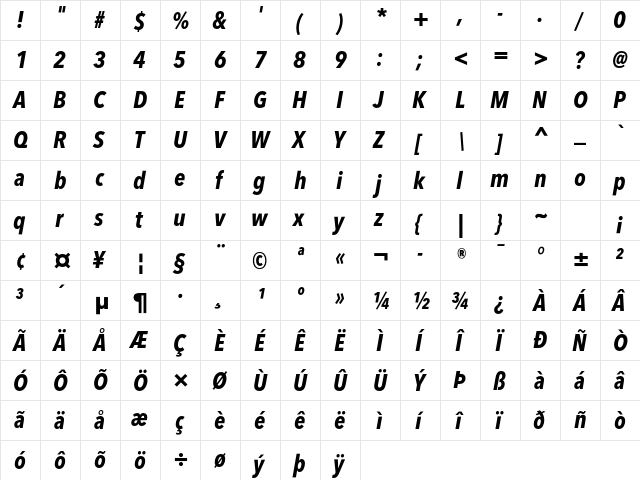
Avenir Next LT Pro Bold Condensed Italic Font Preview
| Style | Bold Condensed Italic |
| Foundry | Linotype Library GmbH |
| Designer | Adrian Frutiger and Akira Kobayashi |
Design Context for Avenir Next LT Pro Typeface
Avenir Next LT Pro offers clean, dependable letterforms without strong stylistic allegiance, making it a practical choice for designers who need flexibility. The dynamic lean of this cut emphasises speed and emphasis in any layout. Its bold stroke weight gives it real presence on the page. Its narrow stance lets it pack a punch even in space-constrained designs.
Pro Tip: Use Avenir Next LT Pro for emphasis, pull quotes, and subheadings where its slanted energy can add rhythm to the layout.